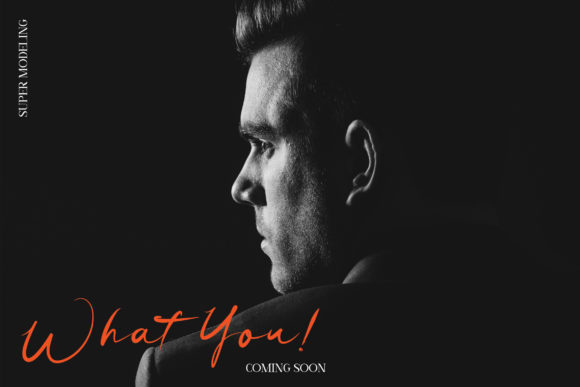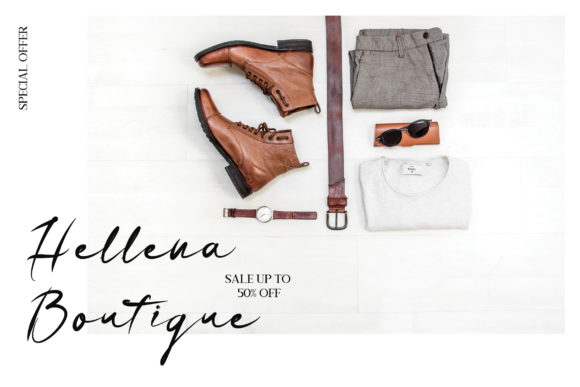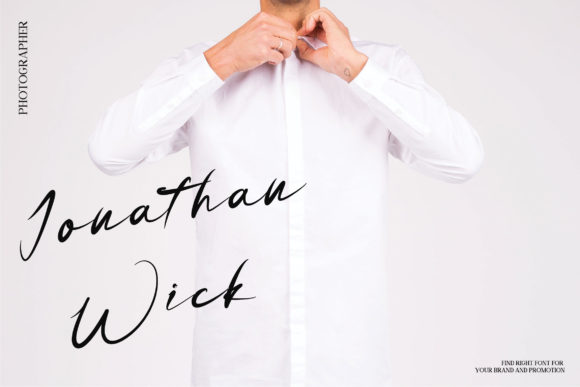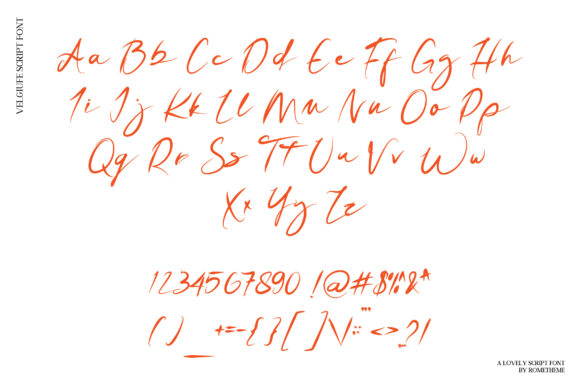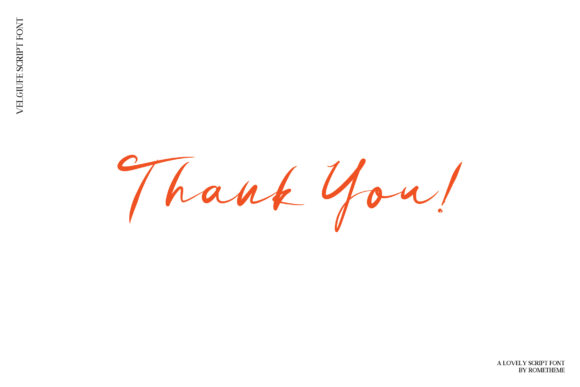
Velgiufe Script Font
Velgiufe Script Font Poster 1
About Velgiufe Script Font
The Velgiufe is a simple and classy handwritten font. It’s elegant, classy, readable, stylish, catchy and easy to use.
It’s the best choice for your professional design projects, including : signatures, watermark on photography, quotes, album covers, business cards, logos, branding, magazines, social media, advertisements, product designs, and much more!